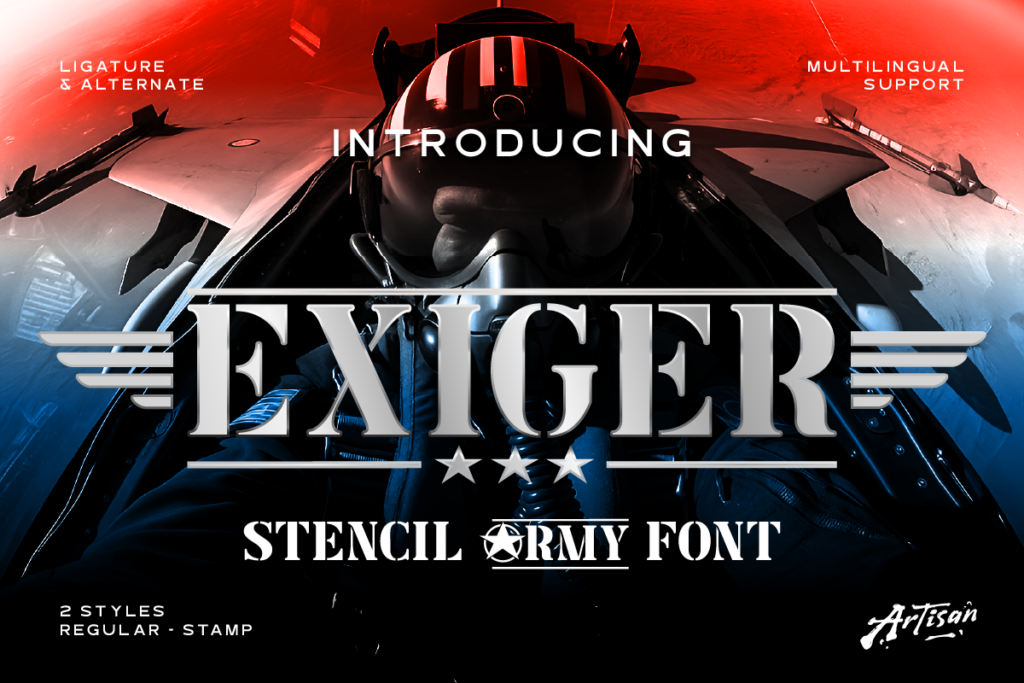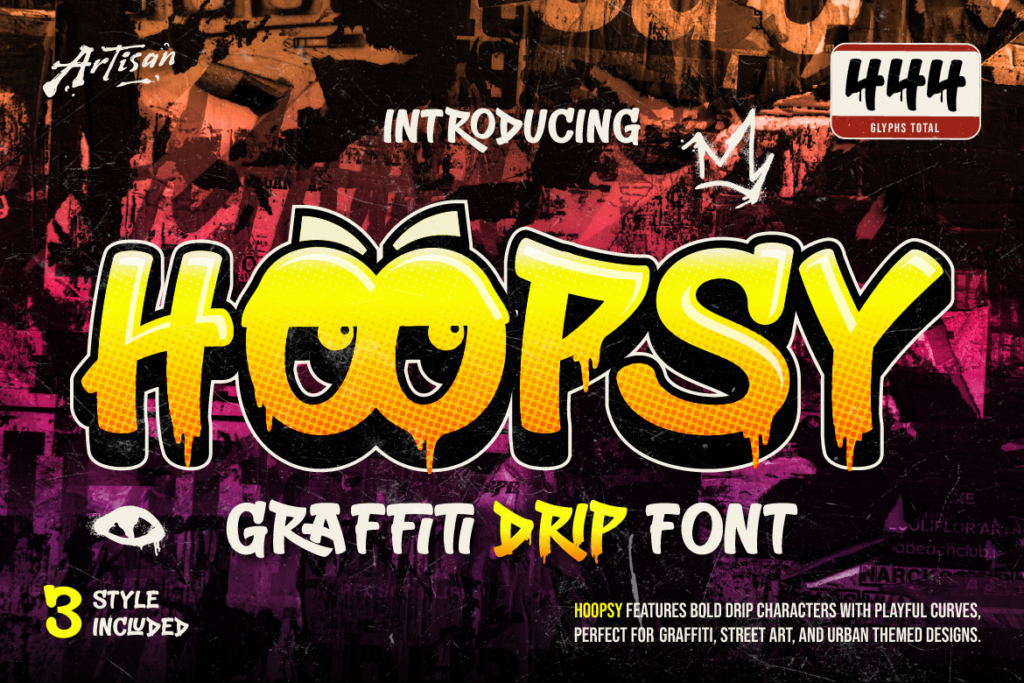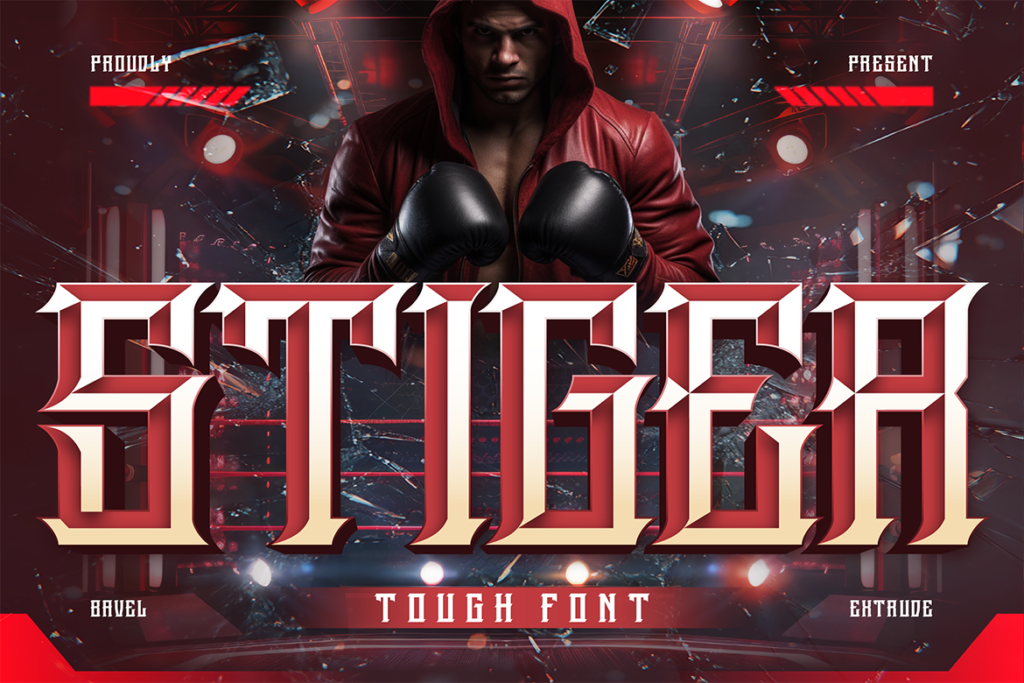
Best Fonts for Streetwear & Urban Brands
Streetwear isn’t just a clothing category — it’s a culture, an attitude, and a visual language that’s deeply rooted in authenticity. The typography in streetwear branding has to match that energy: bold, raw, confident, and a little unpredictable. Generic, polished fonts simply don’t cut it in this space.
If you’re building a brand in streetwear, urban fashion, hip-hop culture, or anything adjacent to that energy, here’s what you need to know about choosing fonts that feel genuinely street — not corporate trying to look street.
What Makes a Font Feel “Street”?
Streetwear typography typically pulls from several visual traditions: graffiti art and spray-paint culture, with drips, textures, and hand-drawn imperfection; bold, heavy display styles that command attention on a hoodie or hang tag; gritty, raw textures that feel authentic rather than digitally polished; and sometimes a touch of irreverence or rebellion in how letterforms are constructed.
The common thread is authenticity. Streetwear audiences can spot a brand that’s faking the aesthetic from a mile away — the typography needs to feel earned, not borrowed.
Top Streetwear & Urban Font Picks
Hoopsy — Graffiti Drip Energy
Hoopsy brings authentic graffiti drip styling that captures the raw energy of street art directly. With its textured, dripping letterforms, it’s a strong choice for streetwear logos, hoodie graphics, and any branding that wants to feel genuinely rooted in urban art culture. It’s bold enough to dominate a design while keeping that handcrafted street authenticity.
Stiger — Tough and Unapologetic
Stiger lives up to its name — a tough, aggressive display font that doesn’t hold back. This is the typography for brands that want to project strength and confidence without softening the edges. Great for streetwear drops, hip-hop event promotion, and brand identities that thrive on bold, in-your-face presence.
Exiger — Stencil Army Aesthetic
Exiger pulls from military stencil typography, a style that’s long been a streetwear staple thanks to its utilitarian, no-nonsense visual character. It works particularly well for tactical-inspired streetwear, utility fashion brands, and any project that wants that rugged, stamped-on aesthetic.
Where Streetwear Fonts Work Best
• Apparel graphics — hoodies, t-shirts, hats, jackets
• Brand drops & launches — limited edition release graphics and promotional content
• Music & culture content — hip-hop event branding, mixtape covers, artist merch
• Social media & content — Instagram and TikTok content for urban fashion brands
Tips for Using Streetwear Fonts Authentically
• Don’t overpolish. Streetwear typography thrives on a bit of rawness — resist the urge to clean it up too much
• Respect the culture. If you’re drawing on graffiti or hip-hop visual language, make sure your brand engages with that culture authentically and respectfully
• Keep secondary text minimal. Let the bold display font carry the design; supporting text should stay simple and out of the way